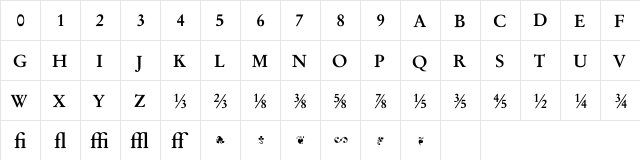
Garamand Classic Book Extras Bold Font Preview
Garamand Classic Book Extras Bold
Design Context for Garamand Classic Book Extras Typeface
Garamand Classic Book Extras wears its vintage influences proudly, with letterforms that recall mid-century signage, classic packaging, and nostalgia-driven design. Its bold stroke weight gives it real presence on the page.
Font Pairing: Combine Garamand Classic Book Extras with a simple slab or neutral sans — period-accurate companions reinforce the vintage feel without competing for attention.
Pro Tip: Use Garamand Classic Book Extras for headlines and pull quotes rather than body copy — its personality is best appreciated in short, focused bursts.